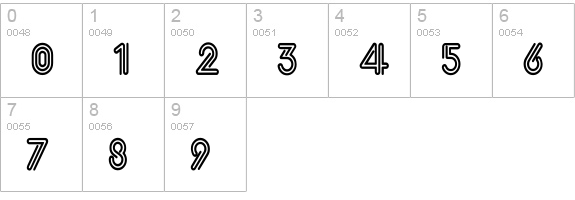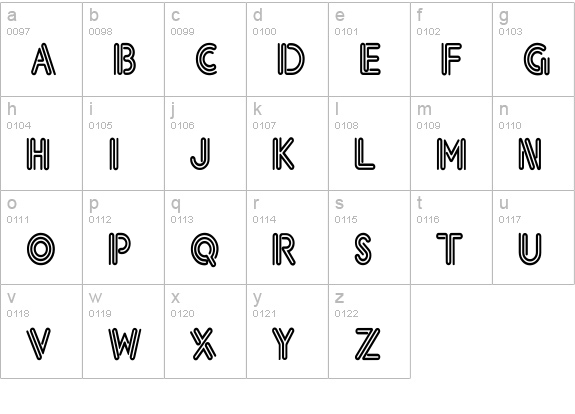
Eklektic-Normal Th Font Details
Eklektic-Normal Th is the standard, neutral variant in the Eklektic typeface family \xE2\x80\x94 well suited to general body text, paragraphs, and standard typographic work.
Eklektic-Normal Th is a versatile and stylish font that seamlessly blends modern aesthetics with classic elegance. The clean lines and balanced proportions of this typeface make it perfect for a wide range of design projects, from branding to editorial layouts. Its timeless appeal and contemporary twist make it a standout choice for any designer looking to make a statement. What sets Eklektic-Normal Th apart is not only its striking design, but also the fact that it is available for free download at FontsMarket.com. This means that you can elevate your projects with this sophisticated font without any cost, making it a valuable addition to your design toolkit. Whether you're working on a personal project or a client's commission, Eklektic-Normal Th is sure to add a touch of elegance and professionalism to your work.